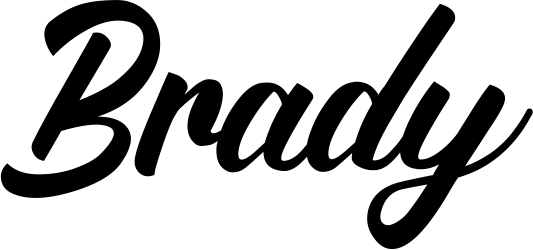
Brady Font
Let us start by saying that it may seem unreadable at times, but it’s worth it to use its cutie in designing posters, headlines, postcards, invitations, or friendly quotes.
The curvature of letterforms and aesthetic dancing of the Brady script font brings the art to the heart of your typography and create a playful and happy atmosphere for the readers so that they can feel comfortable with your writing style.